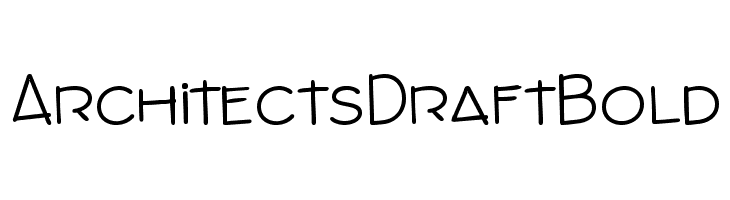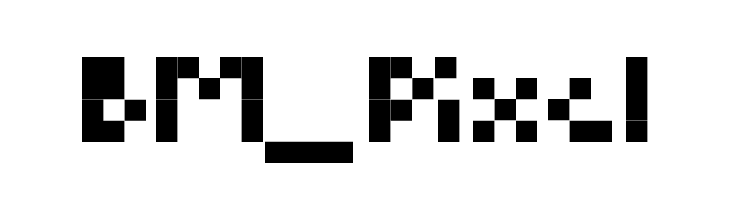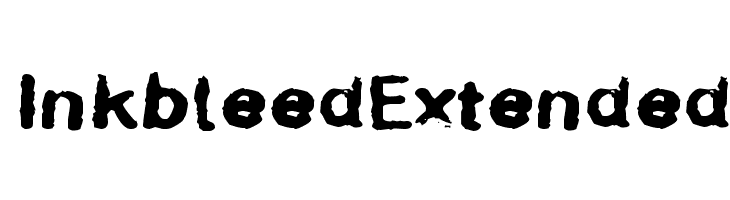
A bold, spiky font with dramatic, jagged edges for a striking visual impact.
A hand-drawn, sketch-like font with overlapping lines and geometric shapes.
A sleek, italicized font with a futuristic and dynamic style.
A pixelated, blocky font with a retro digital aesthetic.
A bold, decorative font with vintage circus-inspired detailing.
A bold, sketch-like font with a dynamic, hand-drawn appearance.
A bold, italicized font with geometric shapes and angular lines for a modern look.
A dotted, geometric font with a digital, pixelated style.
A bold, decorative font with sharp, angular designs and intricate detailing.